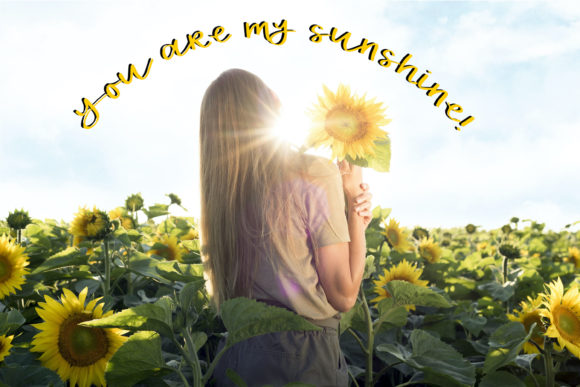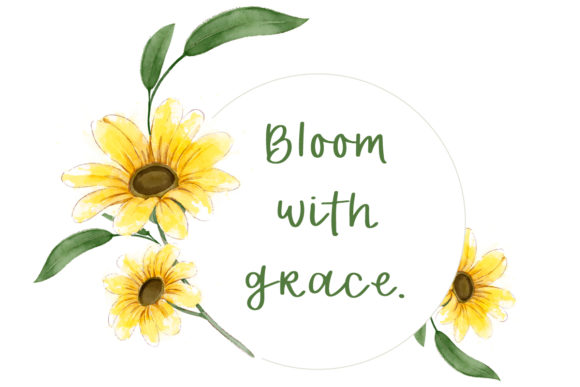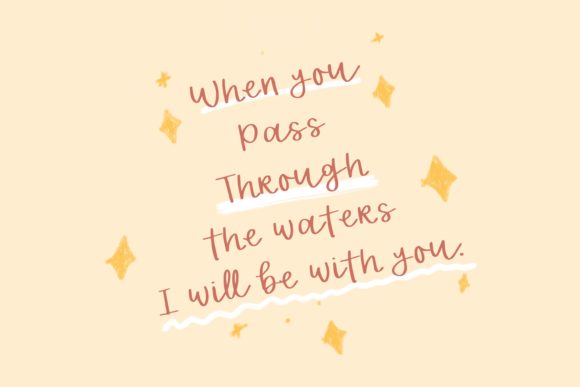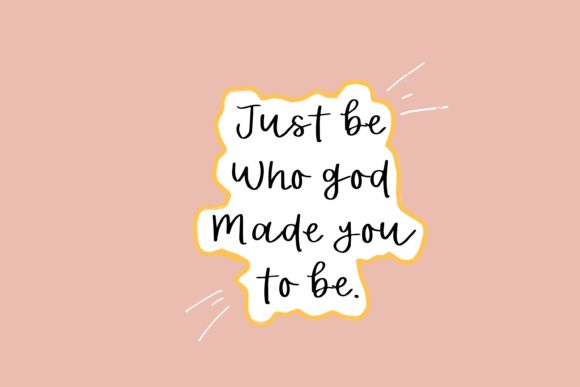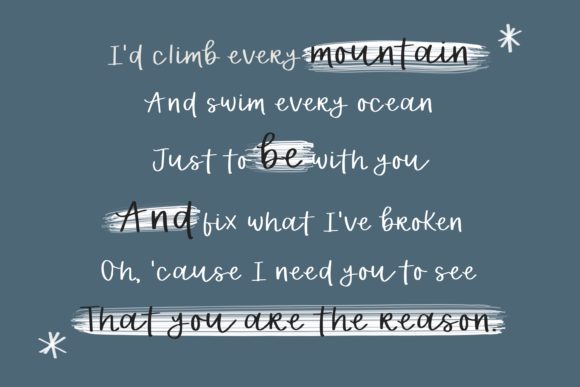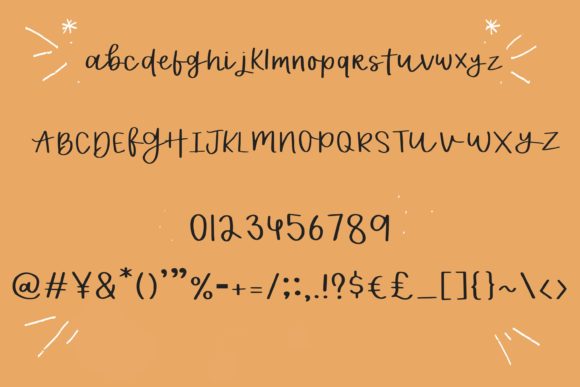
The Perfect Font for Your Masterpiece
Have you ever been browsing through a quaint little bookstore, and you stumble upon a vintage book with a beautiful handwritten title that catches your eye? The elegant touch of the font is what makes it so captivating, and you can’t help but wonder what inspired the designer to create such a unique and timeless style.
That’s exactly what the Baby Sunflower Font offers – a flowing handwritten style that’s perfect for adding a personal touch to your favorite projects. With its incredibly distinct design, you can create spectacular designs that will leave a lasting impression. Whether you’re a seasoned designer or just starting out, the Baby Sunflower Font is a valuable addition to your toolkit.
Baby Sunflower Font Key Features
- Font Type: Hand-drawn, decorative script font
- Unique Characteristics: Features a playful, whimsical design with subtle texture and imperfections, reminiscent of hand-painted sunflowers
Baby Sunflower Font Review
Overall, I think the Baby Sunflower Font is a charming and endearing font that’s perfect for projects that require a touch of whimsy and innocence. ✨ The font’s rounded edges and delicate lines give it a childlike feel that’s both soothing and playful. It’s great for titles, headings, and body text where you want to convey a sense of joy and wonder.
One of the standout features of the Baby Sunflower Font is its legibility. Even at smaller font sizes, the text remains clear and easy to read. This makes it an excellent choice for digital applications, such as websites, mobile apps, and e-books. ✨ The font also has a nice range of weights and styles, which allows for a good deal of flexibility when it comes to designing with it.
- ⚠️ Limited support for languages that require complex typography, such as Arabic or Chinese.
- ⚠️ May not be suitable for projects that require a more professional or corporate tone.
- ⚠️ Can be a bit too cursive or script-like for some users’ taste.
Overall, I think the Baby Sunflower Font is a great choice for designers who want to add a touch of warmth and personality to their projects. While it may have some limitations, its unique charm and legibility make it a worthwhile addition to any font collection.
Use the Baby Sunflower Font for creating cute and playful graphics, invitations, and social media posts.
Use the Baby Sunflower Font for designing custom graphics, logos, and illustrations.
Use the Baby Sunflower Font for creating engaging presentations, reports, and documents.
Use the Baby Sunflower Font for creating a whimsical and playful atmosphere in your designs.
- Playful social media posts and graphics
- Cute logo designs and illustrations